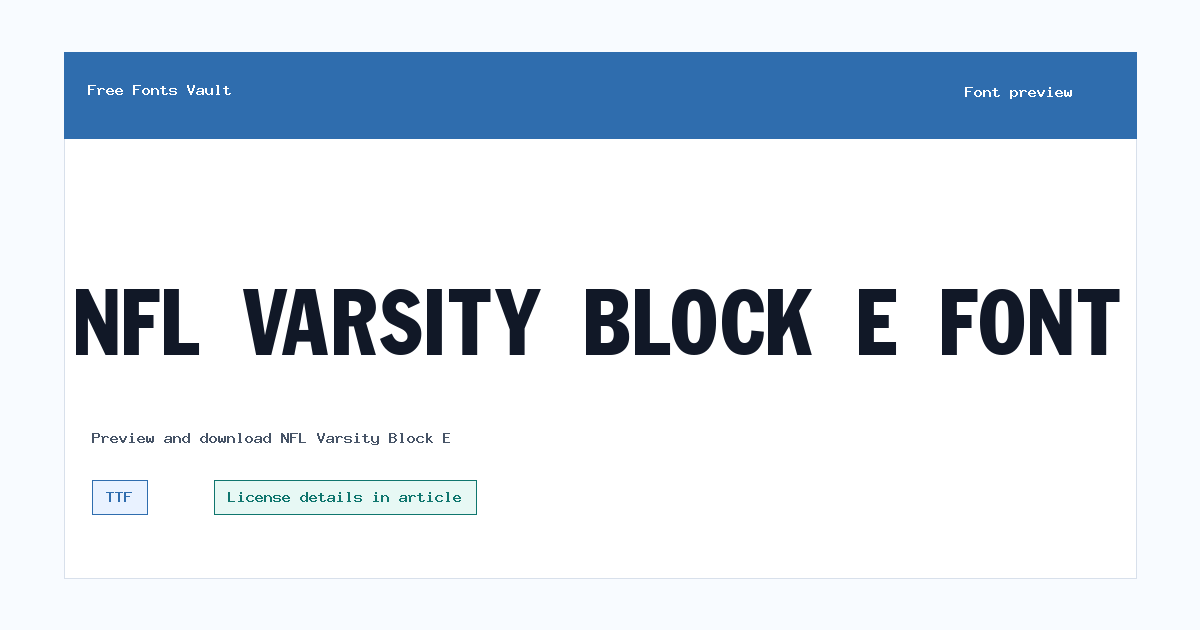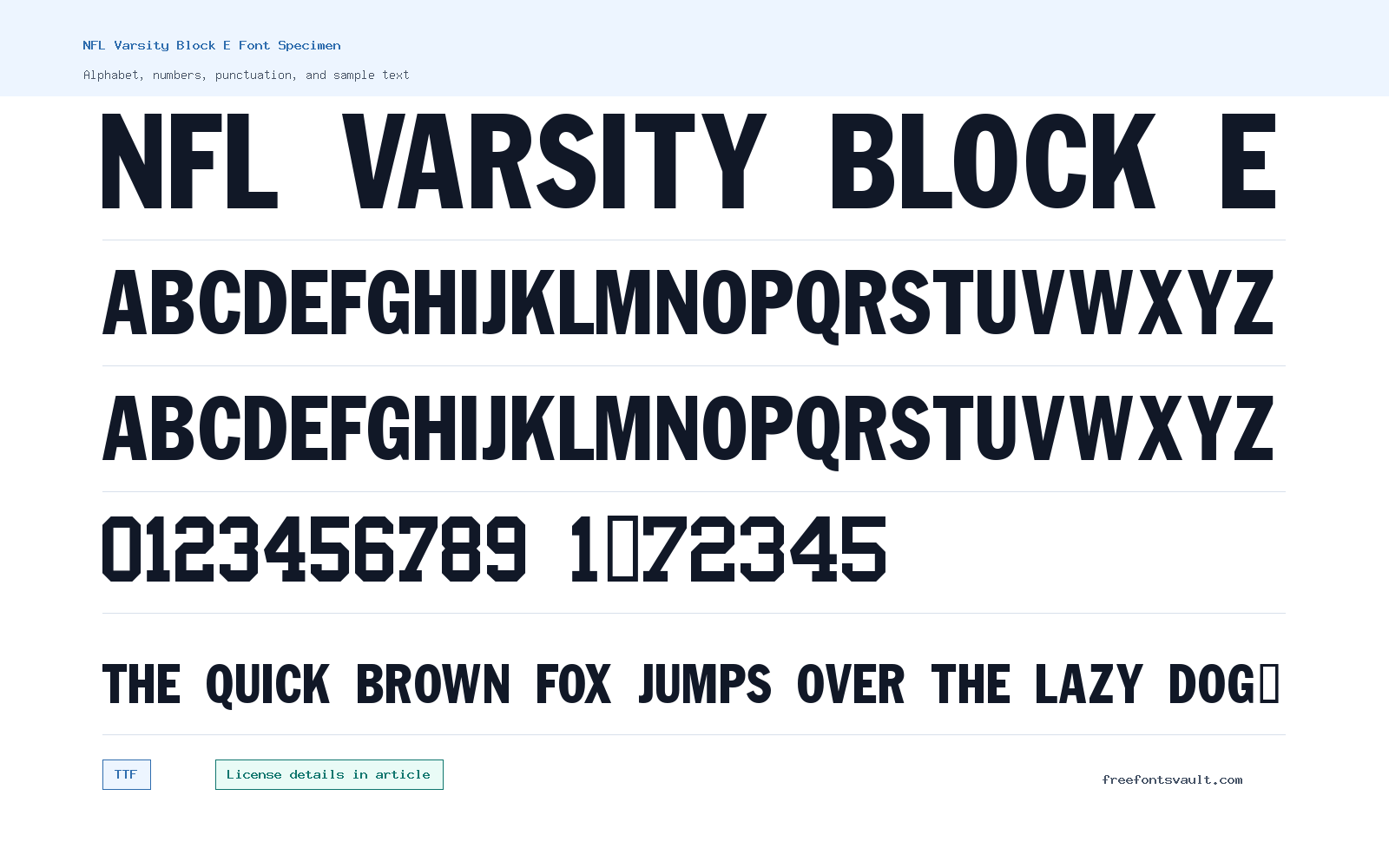
NFL Varsity Block E
NFL Varsity Block E font.
NFL Varsity Block E is a block-style varsity display font with a strong sports-lettering look. It works best when you need bold, jersey-like text for short titles rather than long reading.
About NFL Varsity Block E
NFL Varsity Block E uses heavy, squared letterforms that feel close to classic athletic lettering. The style is built for impact: uppercase words, numbers, and short phrases stand out clearly at large sizes. It is a TrueType font in regular style, and outside font listings describe the family as having 78 glyphs.
Use it for school spirit mockups, pep-rally graphics, sports posters, jersey-style headings, thumbnails, and athletic event flyers. Keep the text short and give the letters enough spacing so the block shapes do not crowd together. For schedules, captions, body text, or small print, pair it with a plain sans serif that stays easy to read.
- Bold varsity block lettering suited to sports-style display text
- Works best for large headlines, numbers, and short labels
- Includes a strong athletic look without needing extra effects
- School spirit graphics
- Sports posters
- Jersey-style titles
- Pep-rally flyers
- Athletic event thumbnails
- Short display headings
A human designer or foundry is not identified. The only credit shown is “Generated by Fontographer 4.1,” which appears to describe the tool used to generate the font rather than a designer credit.
Preview your exact wording before downloading. This style is strongest in large, short text such as team initials, event names, poster titles, and jersey numbers. It is not a good choice for paragraphs or small UI labels. Test uppercase and numbers together, because varsity block fonts often look strongest when letters and numerals share the same visual weight.
Is NFL Varsity Block E good for sports designs?
Yes. Its blocky varsity shape is suited to sports posters, school spirit graphics, jersey-style titles, and athletic event artwork.
Is this an official NFL font?
Public font listings do not establish any official National Football League connection. The name should not be used to imply league, team, or trademark approval.
What text works best with this font?
Use short words, initials, numbers, and headlines. For longer information, use a simple sans serif next to it.